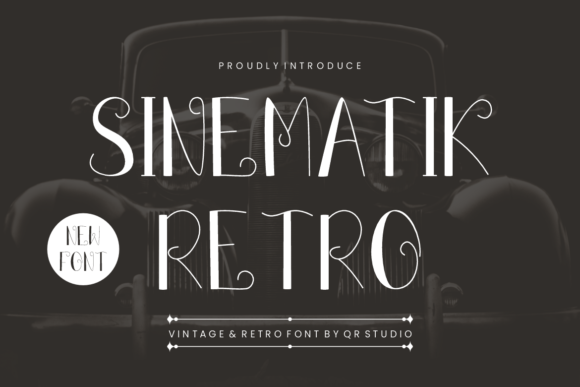
Introducing Sinematik Retro Font, a stunning decorative font that will bring your creations to life! Created by qrdesignstd, this font is the epitome of elegance and sophistication. Whether you're working on a book title, a logo, or any other design project, Sinematik Retro Font is the perfect choice to captivate your audience.
With its unique and eye-catching style, Sinematik Retro Font will instantly grab attention and leave a lasting impression. Its intricate details and vintage-inspired design make it a must-have for any creative professional. Imagine the impact it will have on your next project!
What sets Sinematik Retro Font apart is its versatility. It seamlessly blends with any theme or concept, adding a touch of nostalgia and charm. Whether you're going for a classic, retro look or a modern, edgy vibe, this font has it all. It adapts to your vision effortlessly, making your designs truly one-of-a-kind.
But it's not just about aesthetics. Sinematik Retro Font is also incredibly functional. Its legibility and clarity make it perfect for book titles, ensuring that your readers are instantly drawn to your work. With this font, your book covers will stand out on the shelves, enticing potential readers to pick them up and dive into the captivating worlds within.
Don't miss out on the opportunity to enhance your designs with Sinematik Retro Font. It's a game-changer, a font that will take your creations to new heights. Let your imagination run wild and watch as Sinematik Retro Font brings your vision to life.